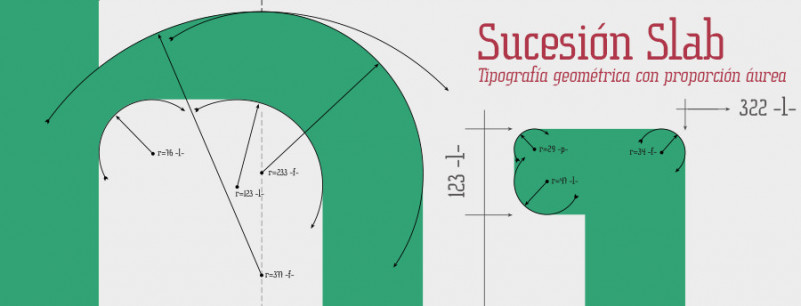
Sucesión Slab Serif
This font Slab Serif corresponds to the series of typefaces built proportions derived from mathematical sequences. An experiment in the sense of proportion, to define all I have relied mainly on the Fibonacci sequence, I have also used some numbers of the sequence of Lucas and crevices at the nodes of the horns and some punctuation’ve used Kepler triangle.